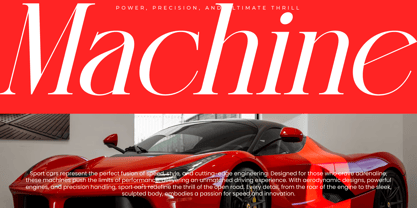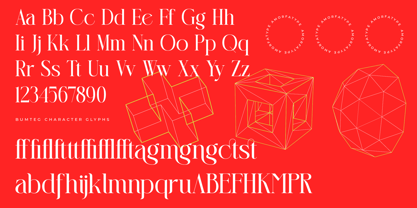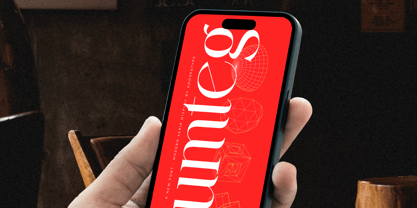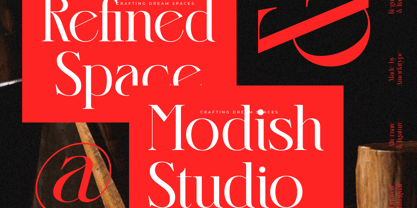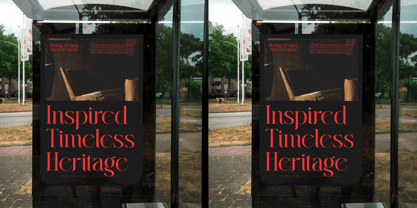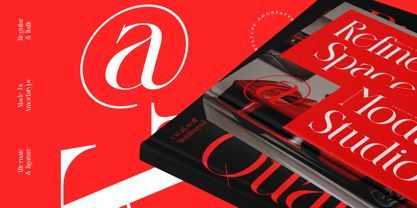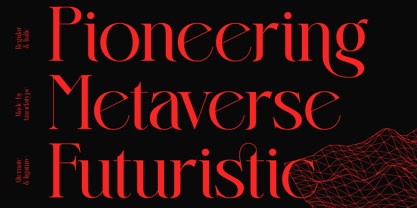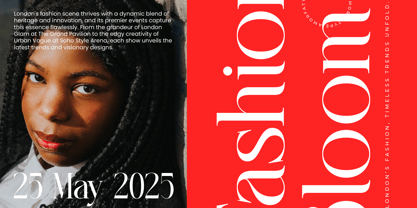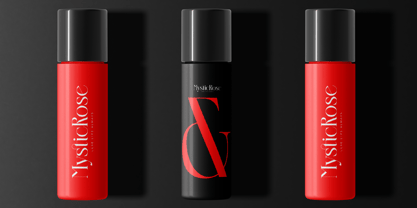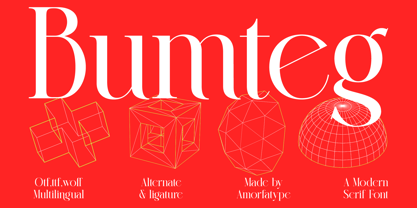
Bumteg
by Amorfa Type
Bumteg A Modern Serif Font by Amorfatype
Bumteg A is a bold and modern serif font that effortlessly blends classic elegance with contemporary minimalism. With its sharp geometric serifs and refined, clean lines, this font radiates sophistication and clarity, making it a standout choice for creative projects. The subtle contrasts in stroke weights and intricate design details give Bumteg a unique and polished look, perfectly balancing tradition and modernity.